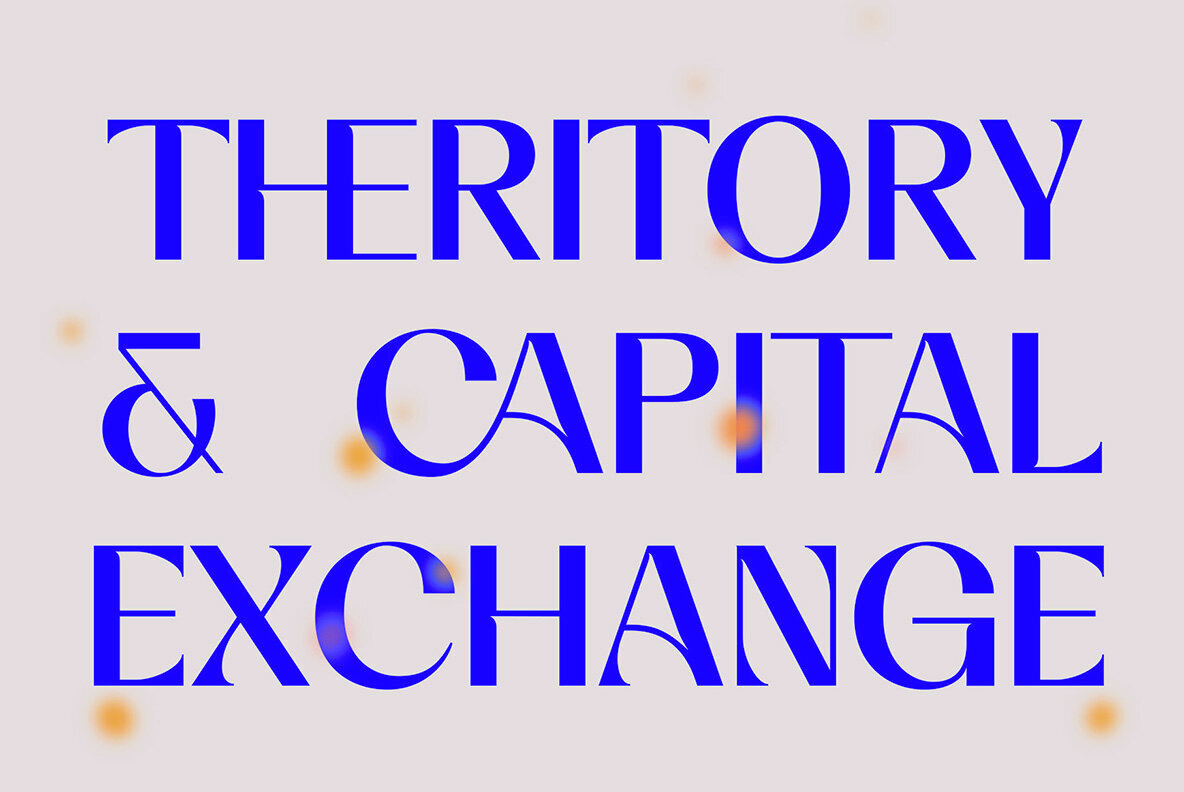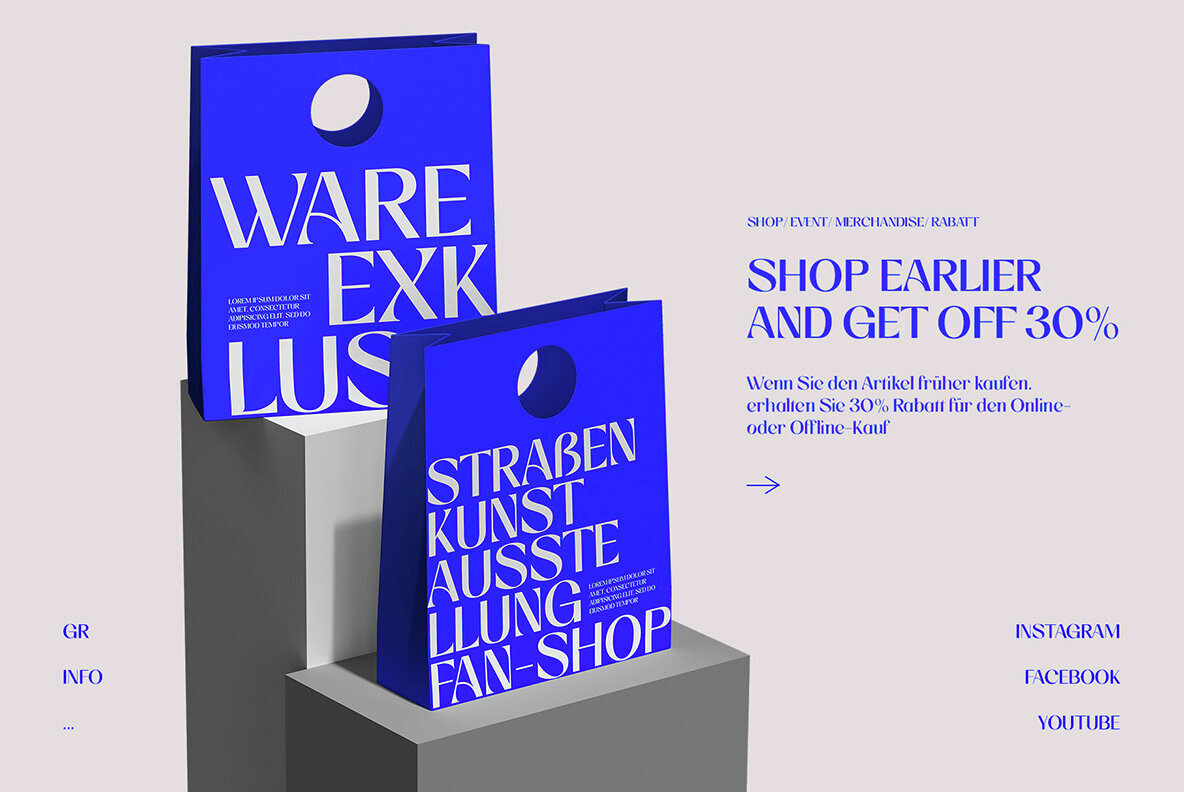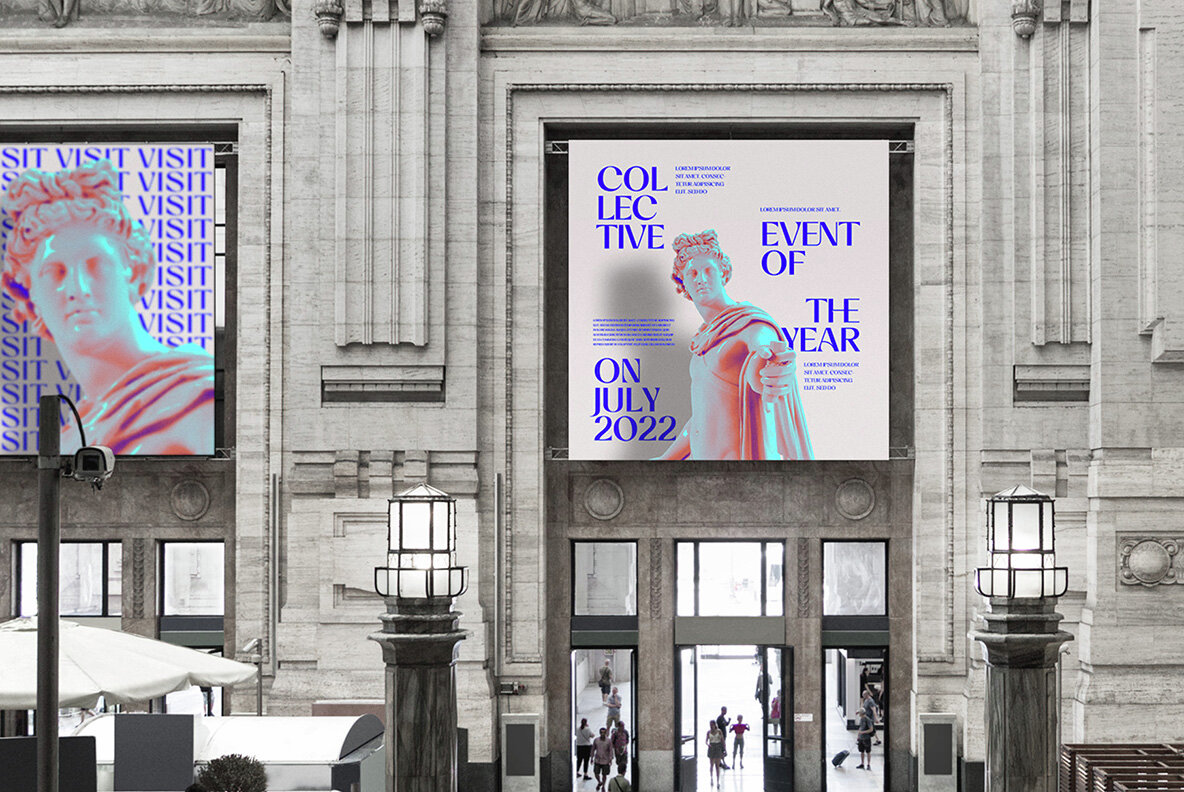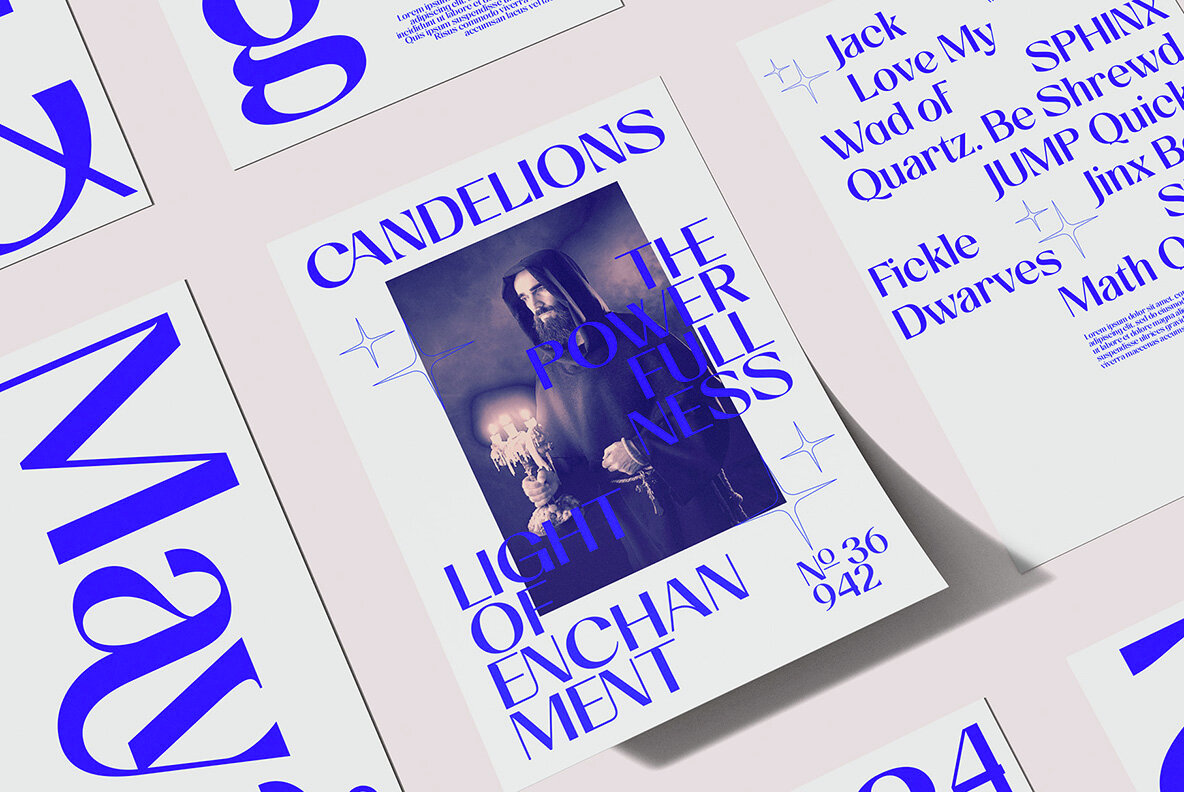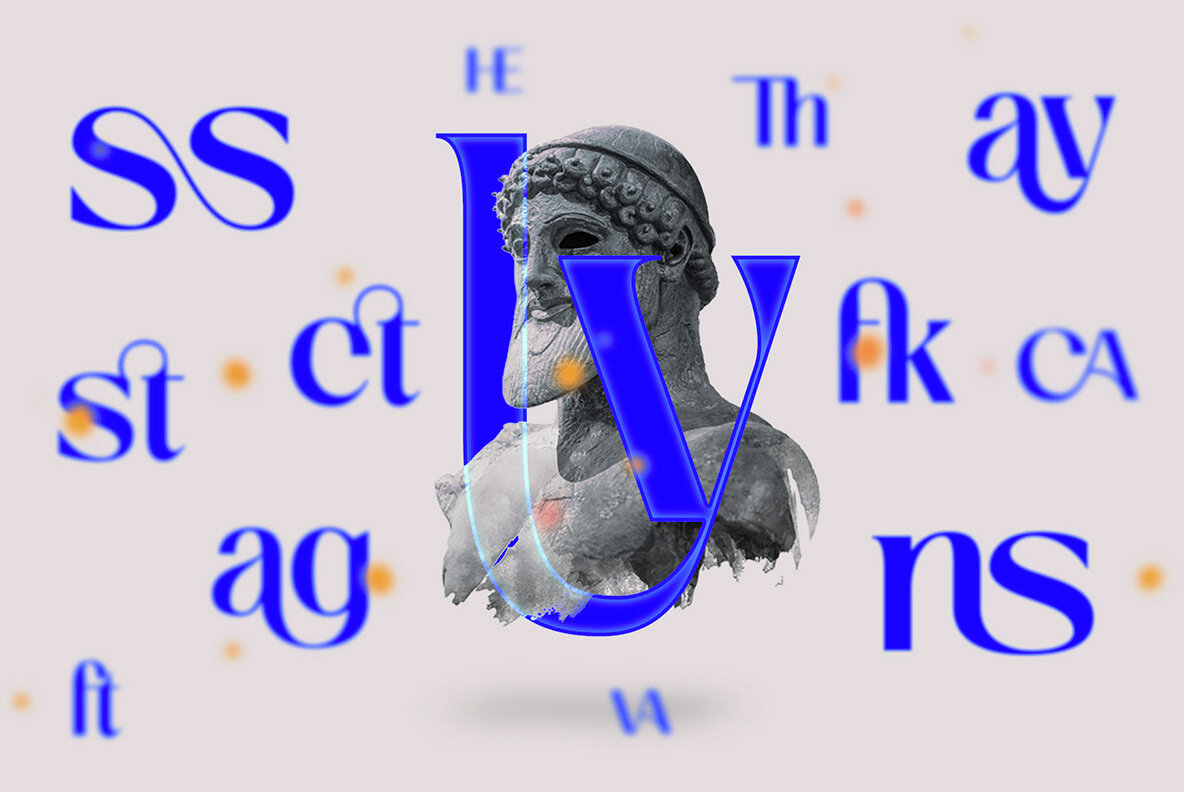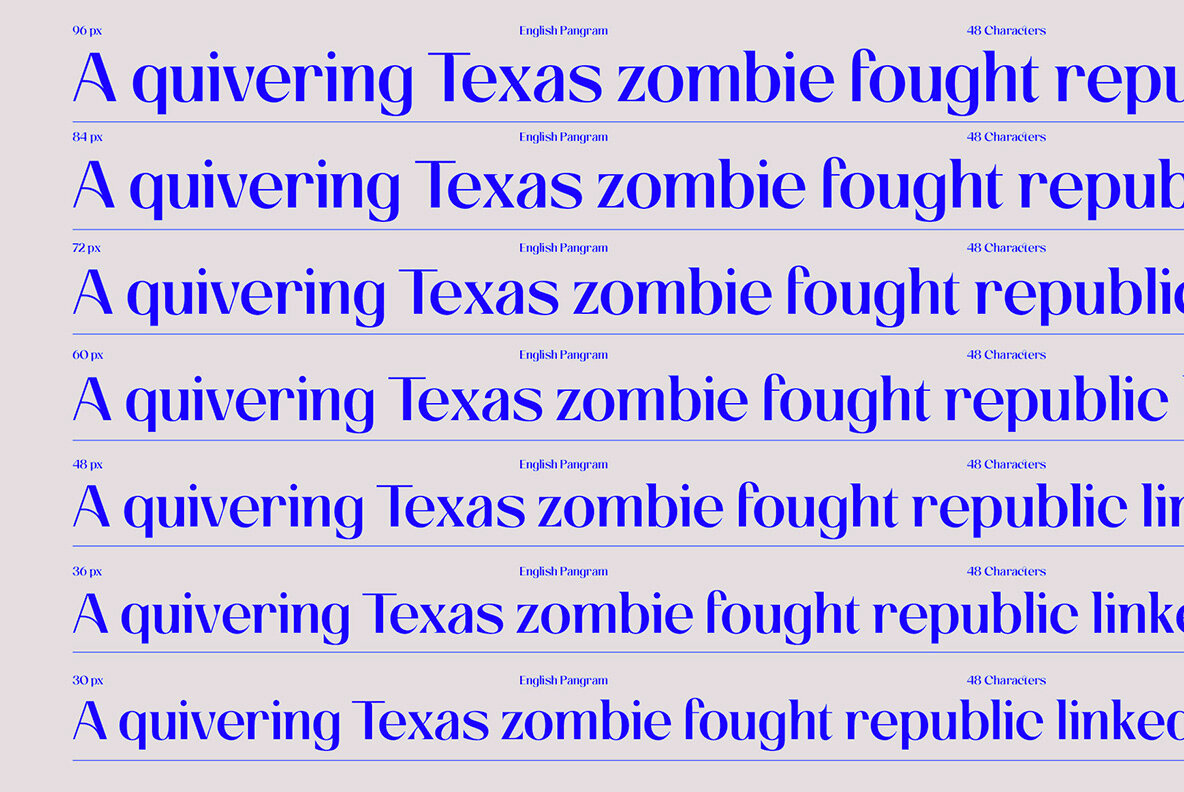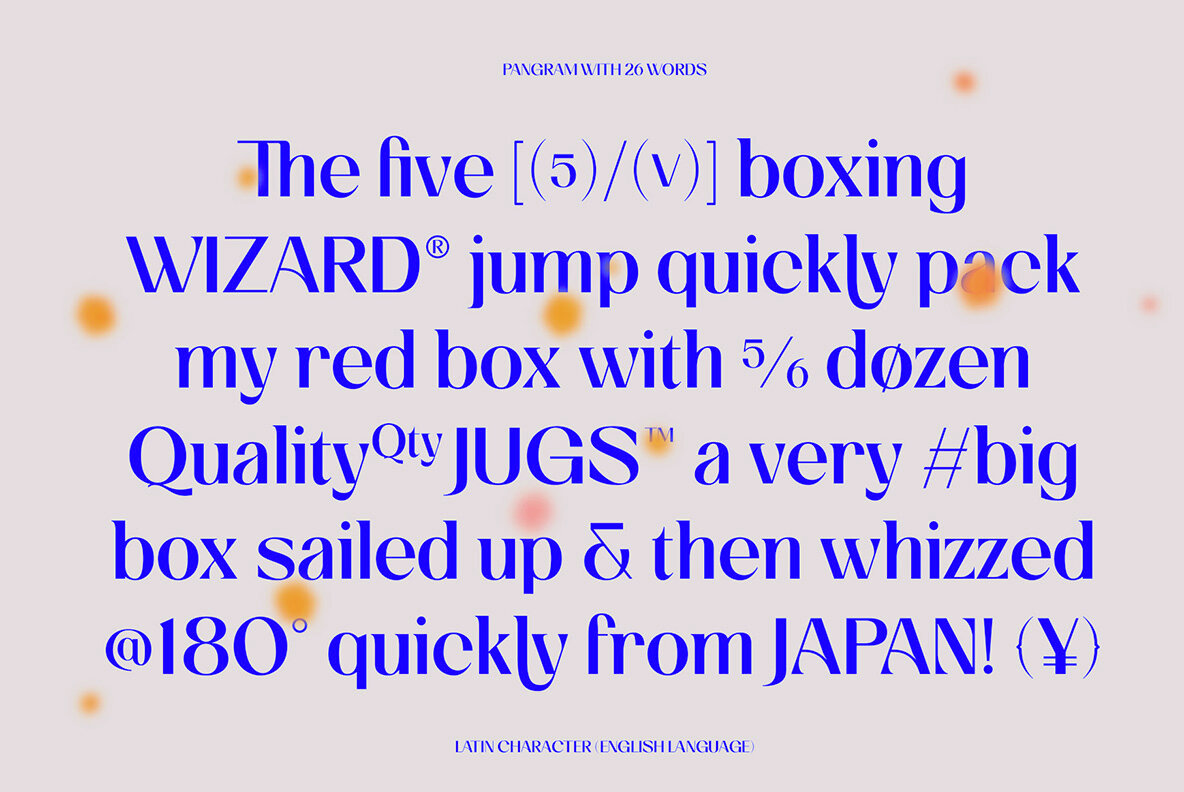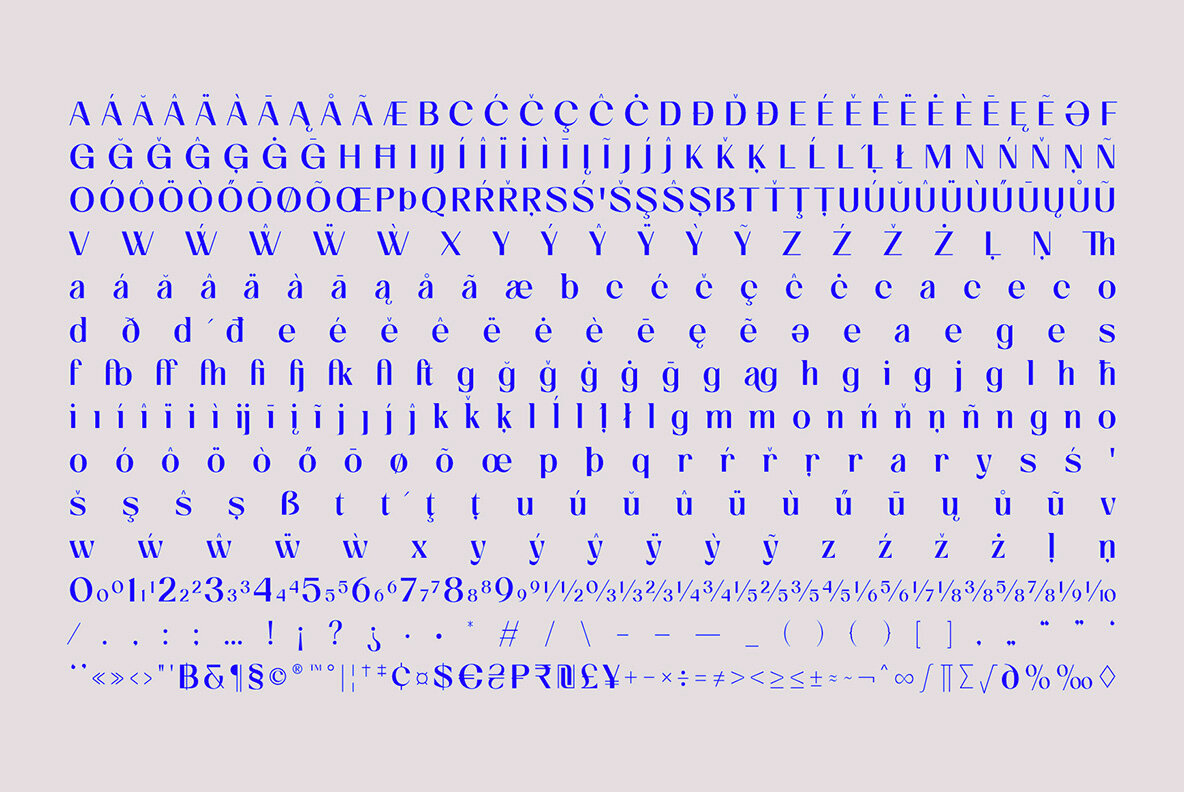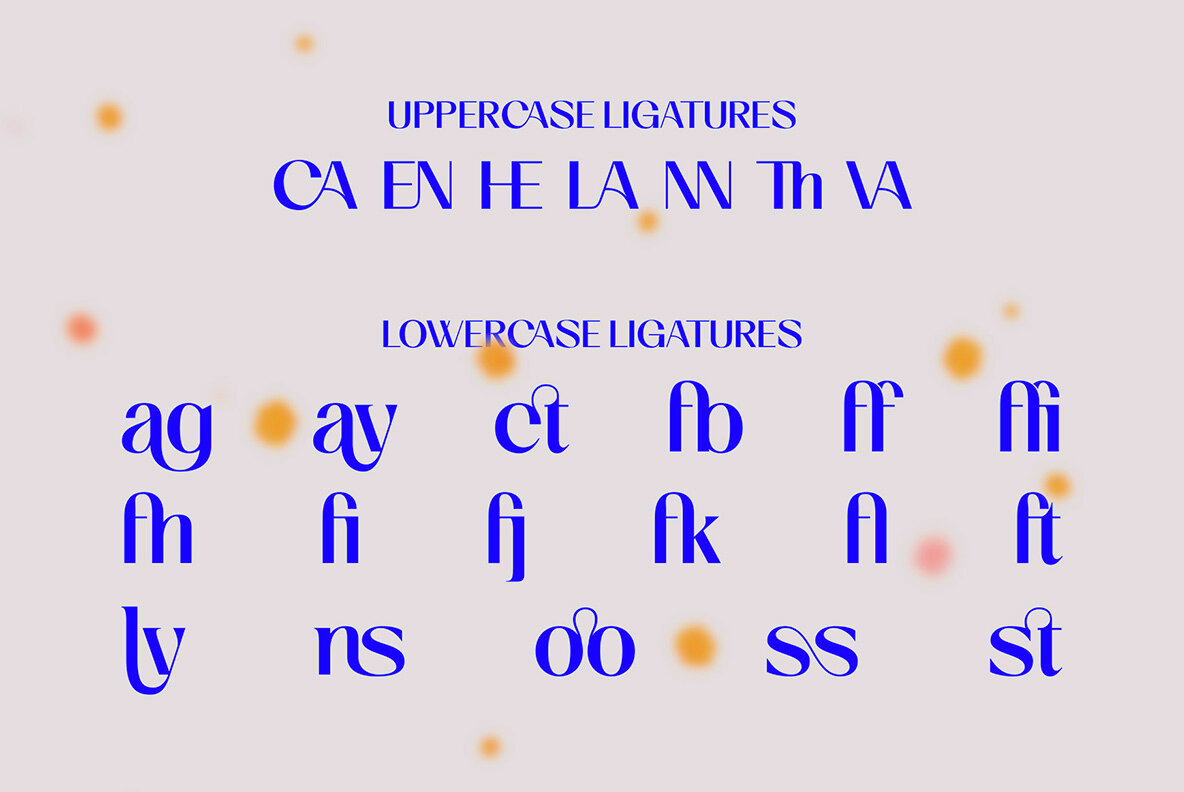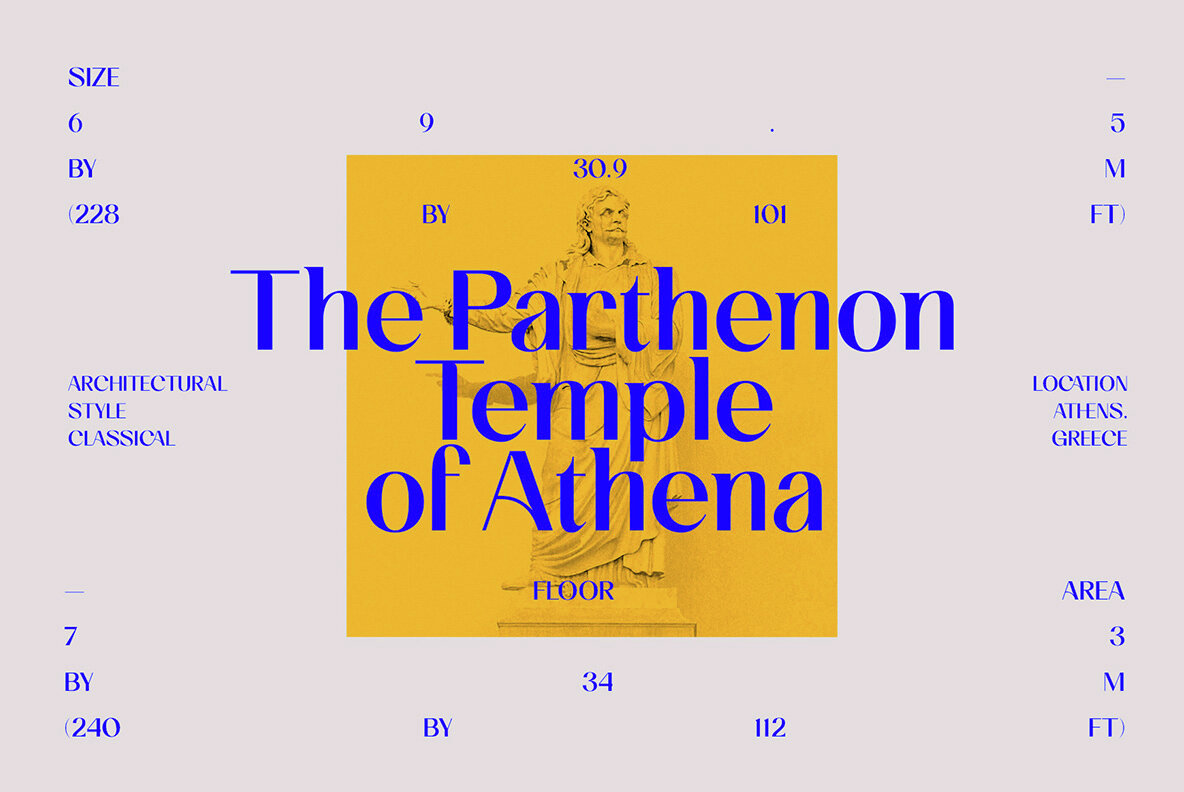
Cas Olgans Font
Cas Olgans Regular
Cas Olgans an abstract masterpiece inspired by the enchanting eras of the 1920s through the 1960s. This font is not merely a typeface; it's a fusion of art deco elegance and neo-classic allure, delivering a seriously unique and stunningly ornate experience. Cas Olgans proudly boasts a sans-serif style with a subtle flare and pinch, presenting a gorgeous and distinctive aesthetic. The font's decorative ligatures add an impressive and magical touch, leaving users stunned and satisfied. This single-variant font is versatile and suitable for various design applications, including websites, packaging, logos, poster, layout, and branding. The ligatures and alternatives aren't dull, but they're not pushy. This typeface can be seen from an elegant and casual point of view and in the thin semi-serif accents of each replacement character. Multi-language for western Latin and Latin characters for Asia, Oceania, and Africa, as a complement to the functionality of Cas Olgan for more segmented purposes. Features: